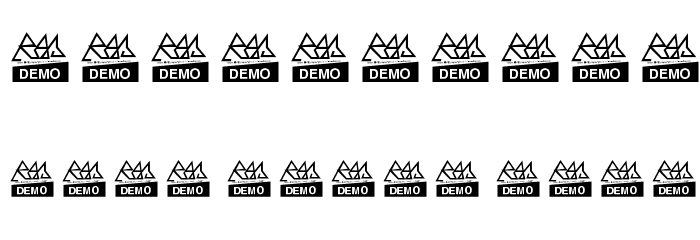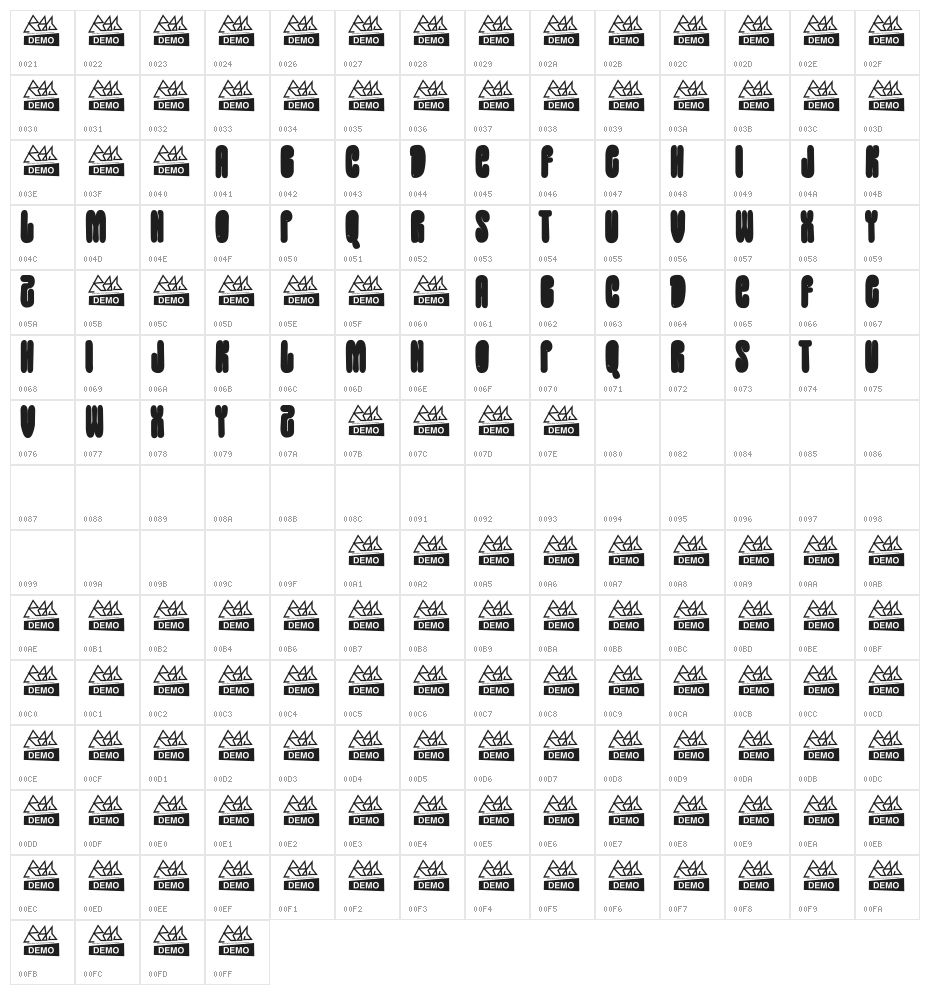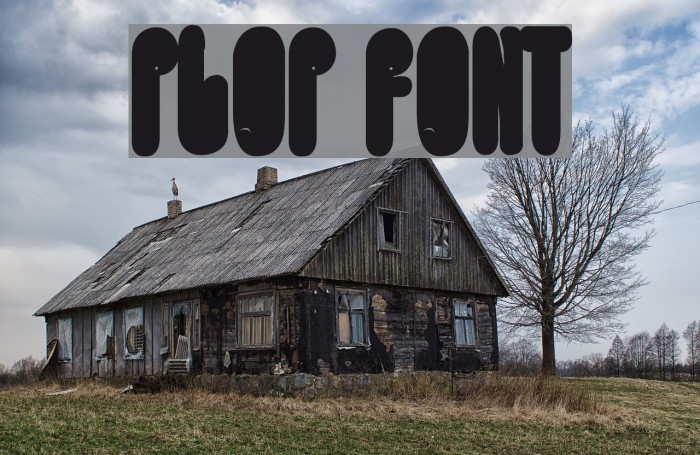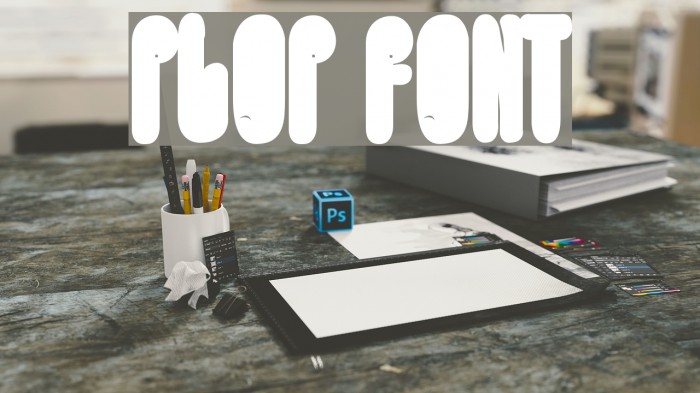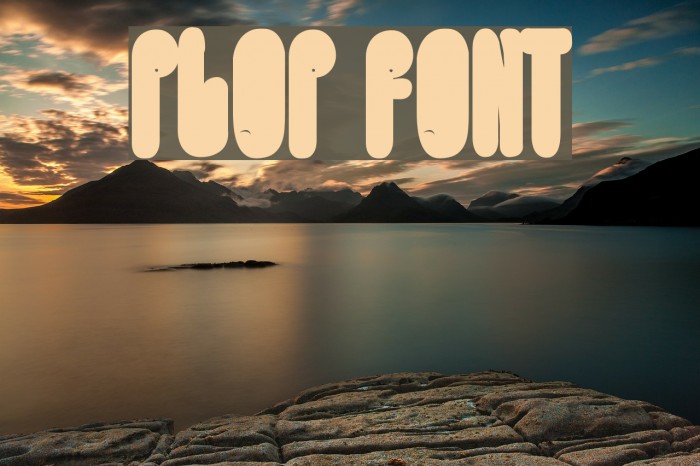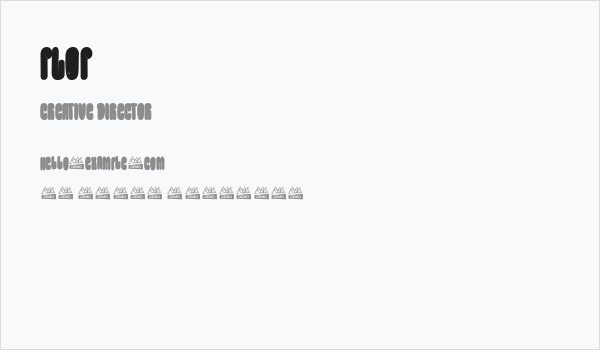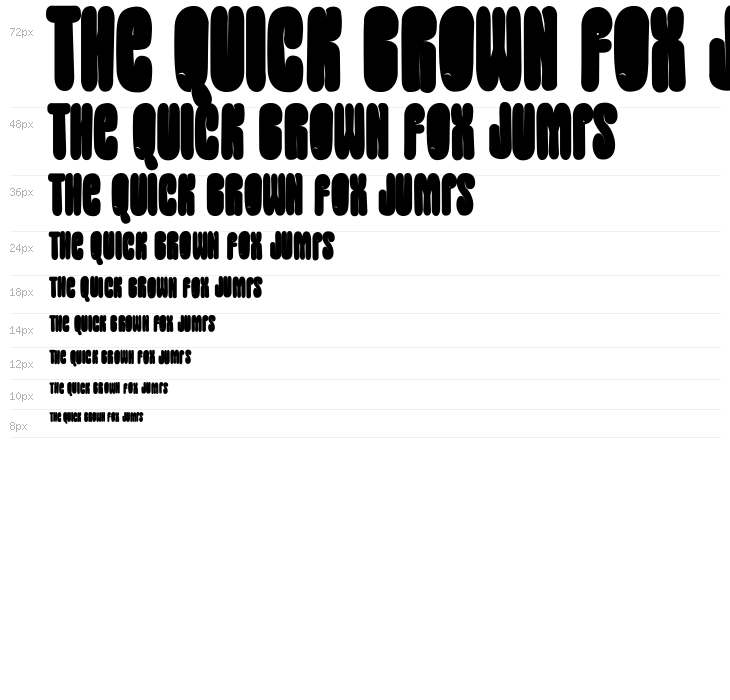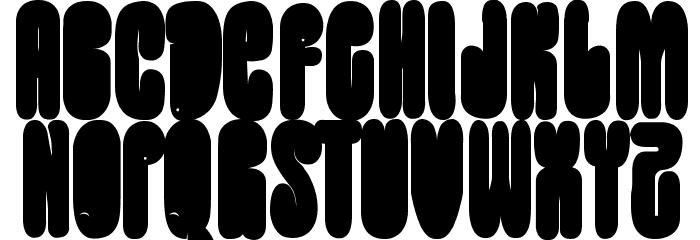
PLOP Font
This font features a bold and playful design with rounded, thick characters that create a strong visual impact. The letters are uniformly wide, giving a sense of balance and symmetry. The style is reminiscent of retro or vintage aesthetics, with a modern twist that makes it suitable for contemporary designs. The characters are tightly spaced, enhancing the boldness and making it ideal for attention-grabbing headlines or logos. The font's unique style is both decorative and functional, making it versatile for various creative projects.
| Overall Style | Retro, Modern |
| Proposed Projects | Ideal for branding, poster design, album covers, and any project needing a bold, eye-catching typeface. |